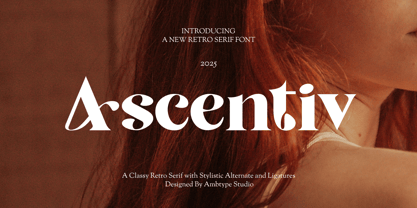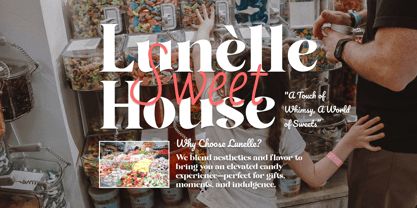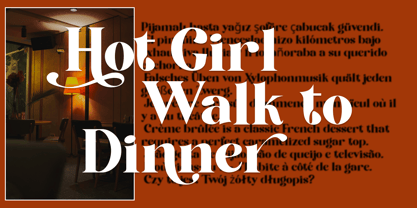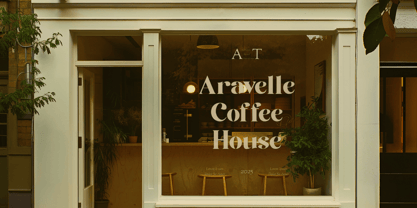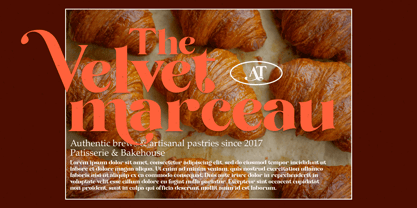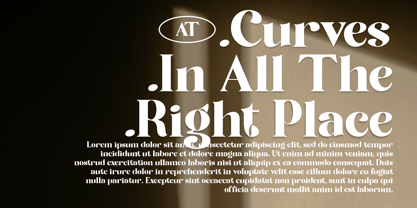
Ascentiv
by Ambtype Studio
The Ascentiv Font Family was designed by William Rizky Bahari and published by Ambtype Studio. Ascentiv contains 2 styles and family package options. More about this family
Ascentiv is a bold serif typeface infused with retro charm and playful character. Designed to stand out in editorial layouts, branding projects, and packaging designs, it brings a nostalgic flair with a modern sensibility.
Its thick, confident letterforms are balanced with soft curves and quirky details, making it perfect for headlines that demand attention without losing warmth or approachability. The strong vertical stress and high contrast give it a vintage look, while subtle contemporary touches keep it fresh and relevant.
Inspired by classic retro aesthetics, Ascentiv is more than just a throwback—it’s a celebration of timeless design principles reimagined for today’s creatives. The typeface includes thoughtfully crafted ligatures and stylistic alternates to offer variety and personality in your compositions.
With support for multiple languages and two essential styles—Regular and Italic—Ascentiv is both expressive and functional. Whether you're creating magazine titles, product labels, or bold brand identities, this typeface adds depth and distinction to your visual voice.